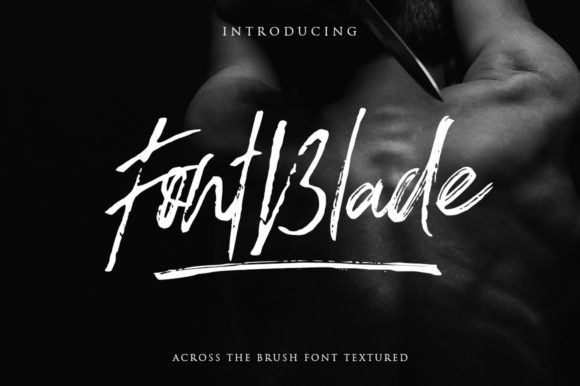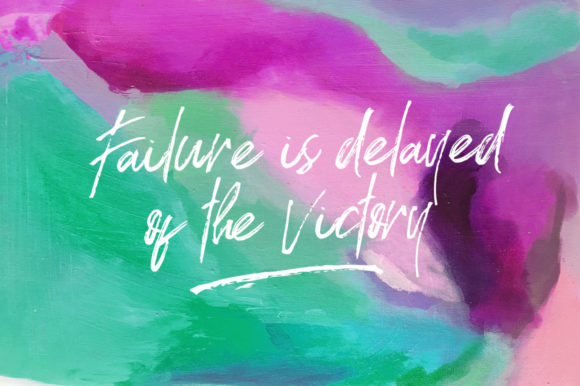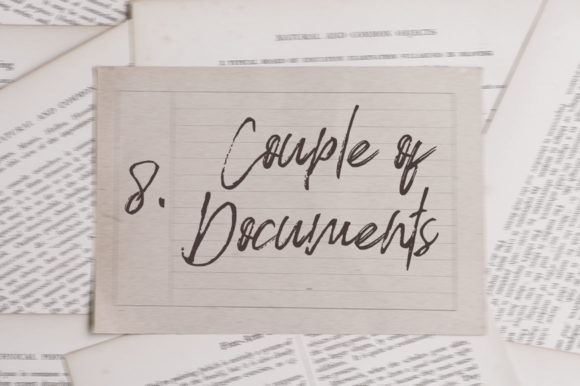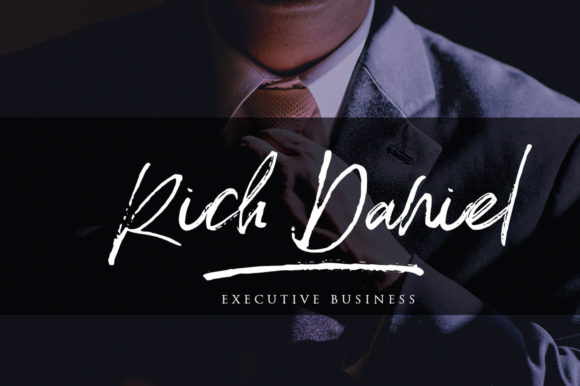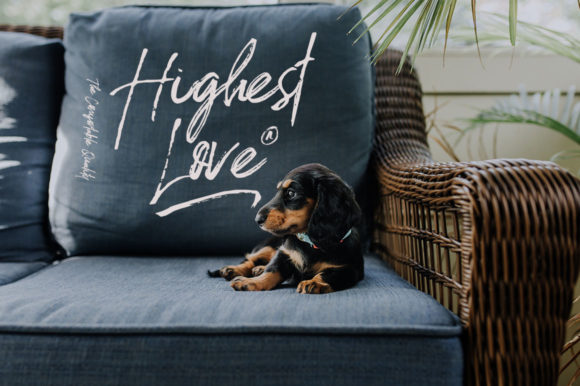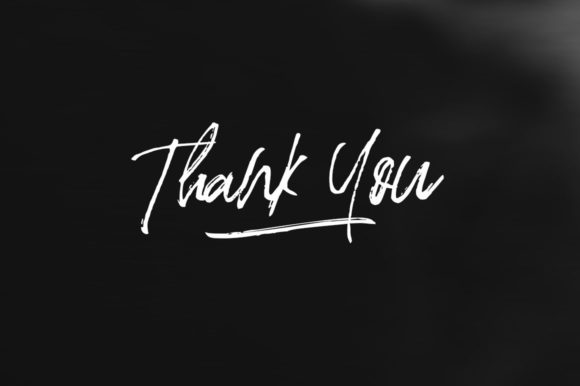
Font Blade Font
Font Blade is a light and elegant handwritten font with an effortless beauty. It will add a sophisticated spark to any design project!